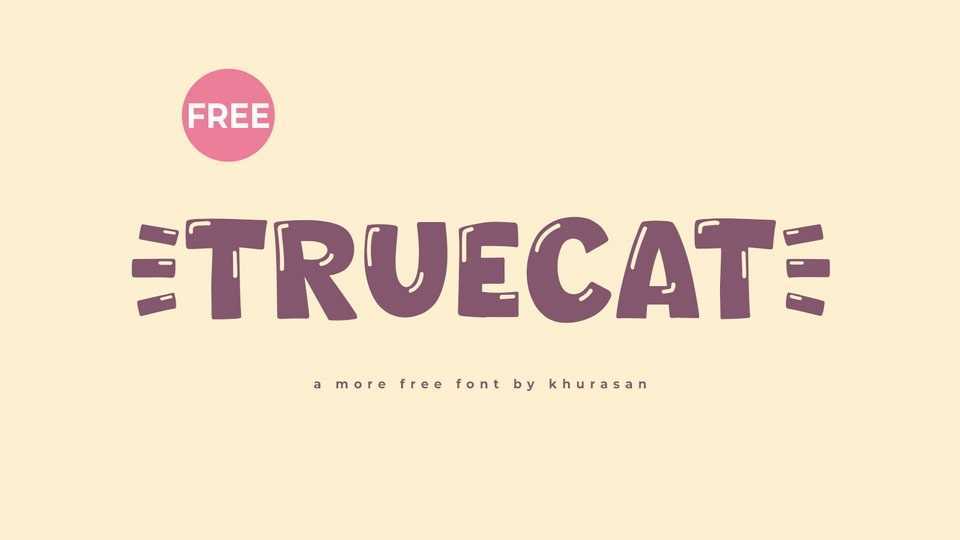
Download Truecat font, a lively and playful cartoon typeface that adds a hearty dose of fun to your designs. Truecat is crafted with bold and chunky strokes, emanating a playful energy that brings a sense of cheerfulness and whimsy.